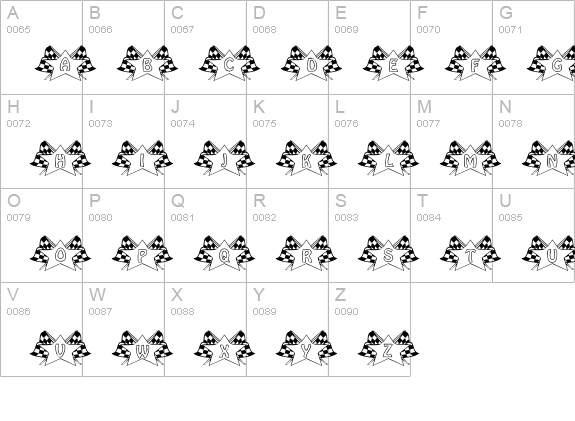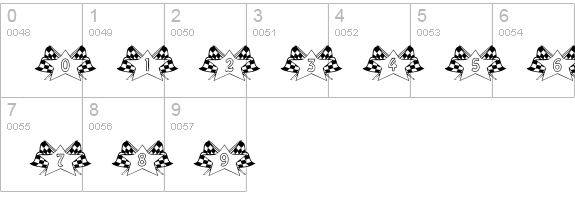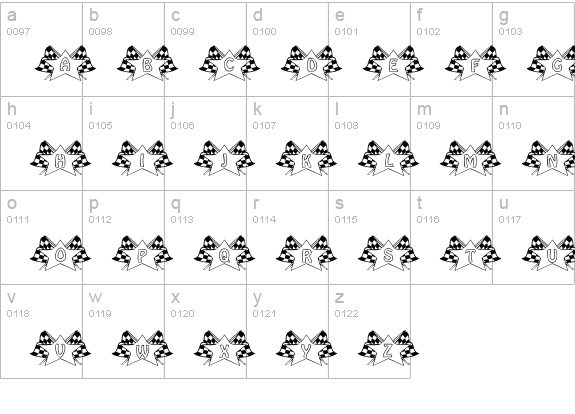
Introducing 101! B10 Jr font, a charming and whimsical typeface that exudes creativity and playfulness. With its unique design and intricate details, this font is perfect for adding a touch of fun to your projects. Whether you're designing invitations, posters, or branding materials, 101! B10 Jr font will make your text come to life. Best of all, this delightful font is available for free download at FontsMarket.com. Don't miss out on the opportunity to add this eye-catching typeface to your collection. Let your creativity shine with 101! B10 Jr font!